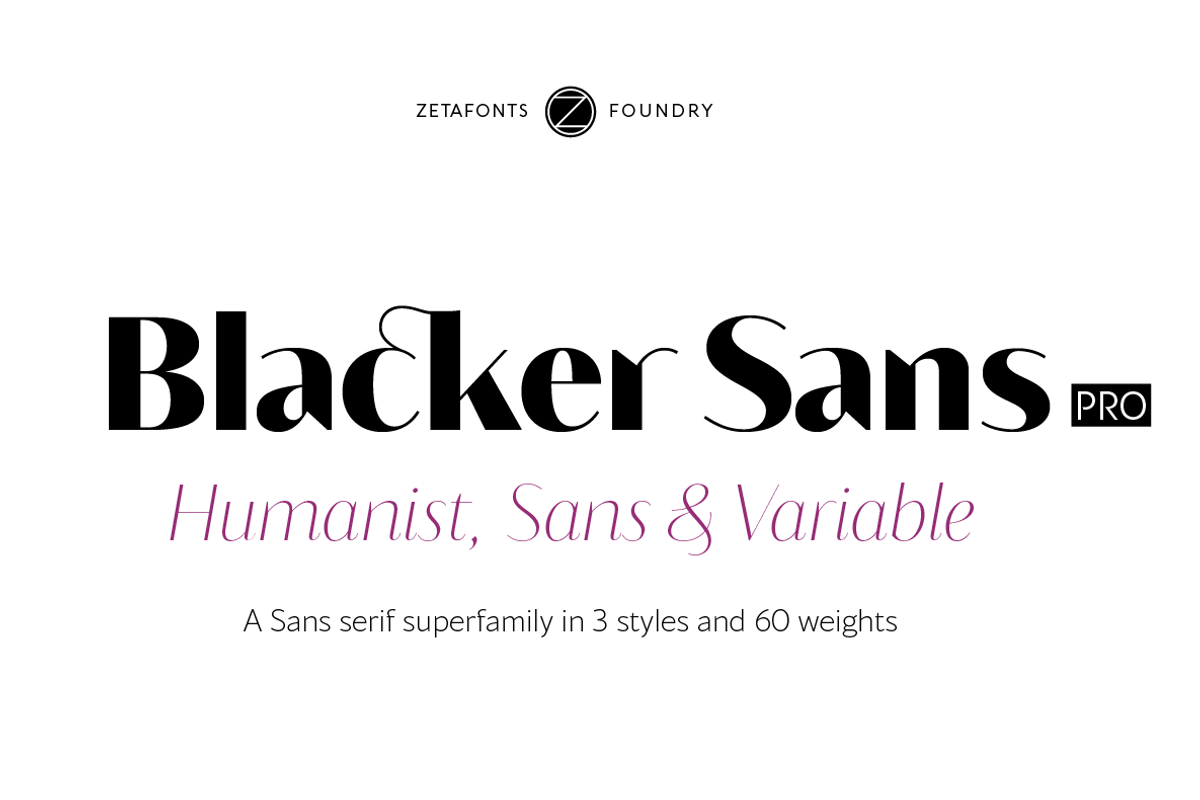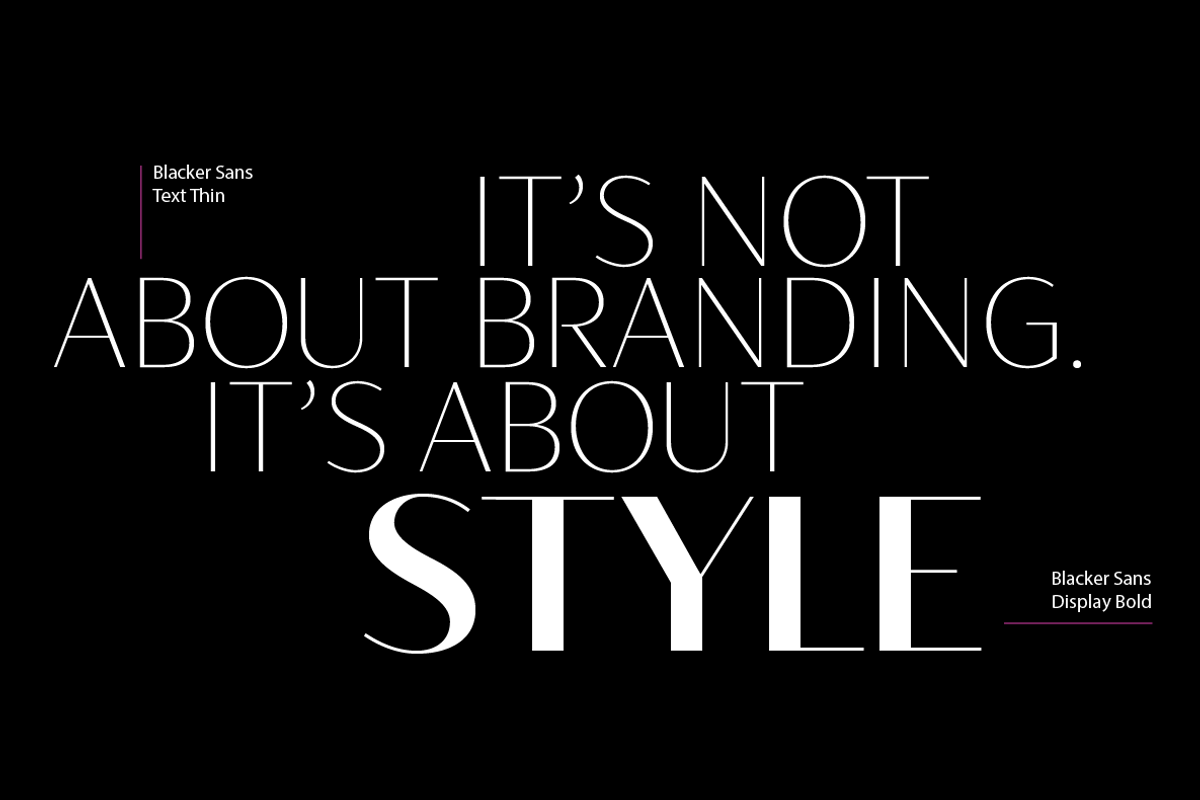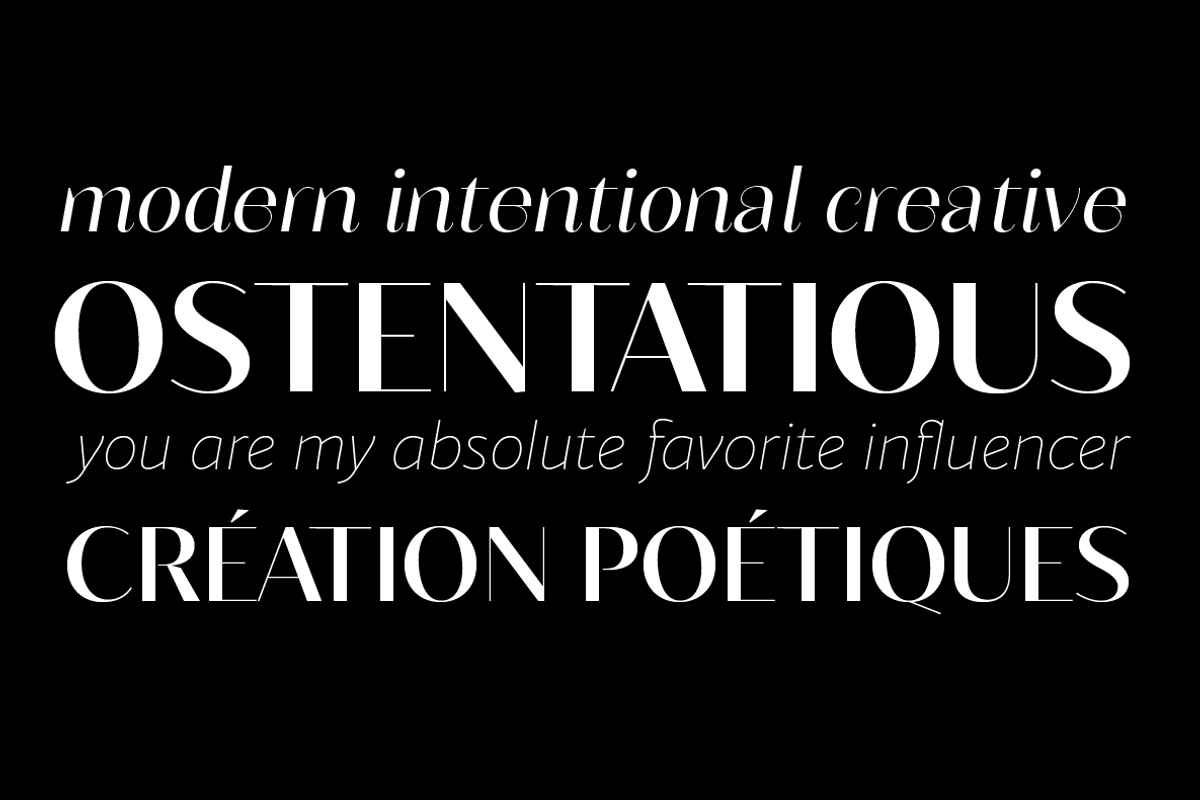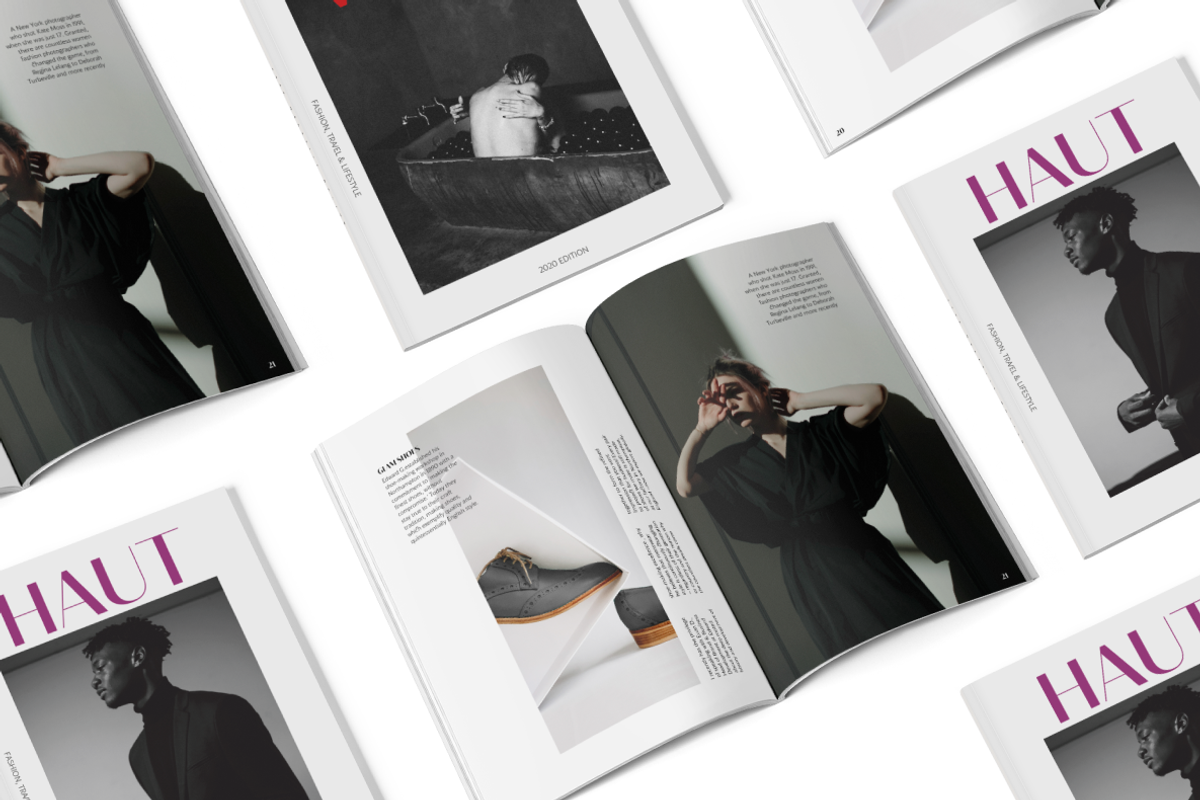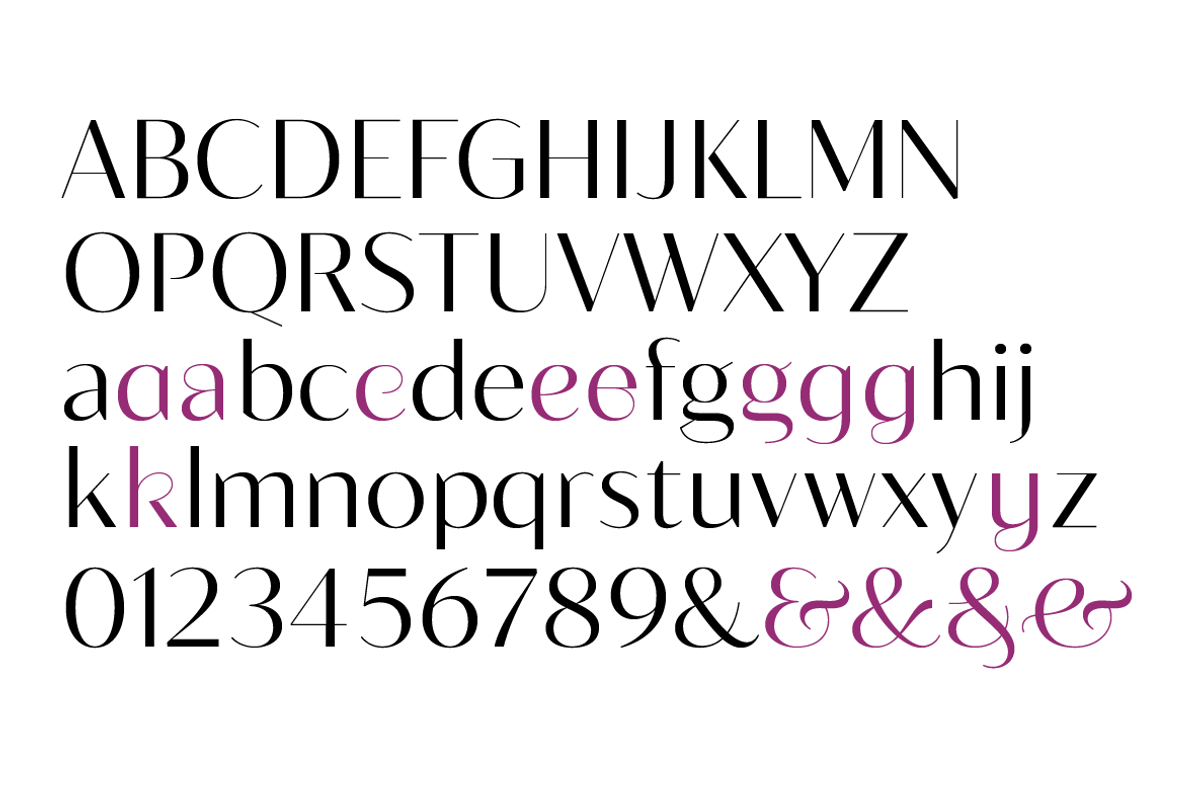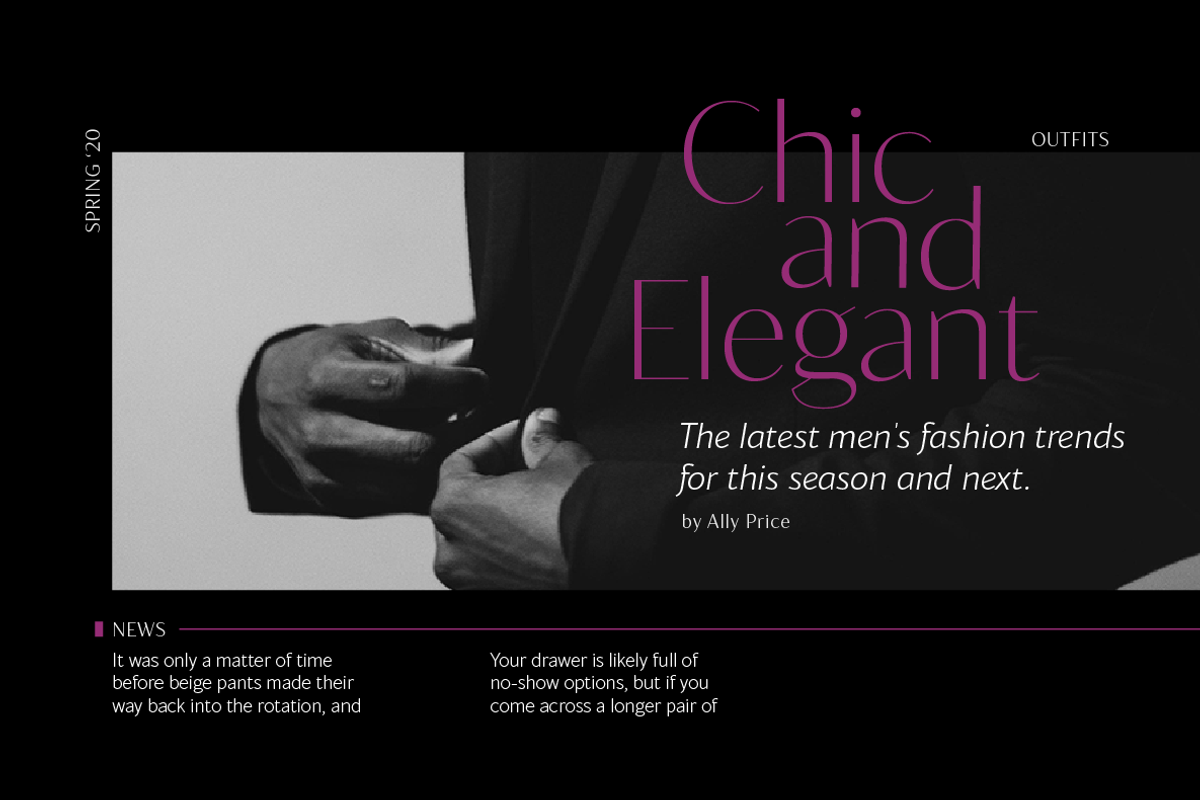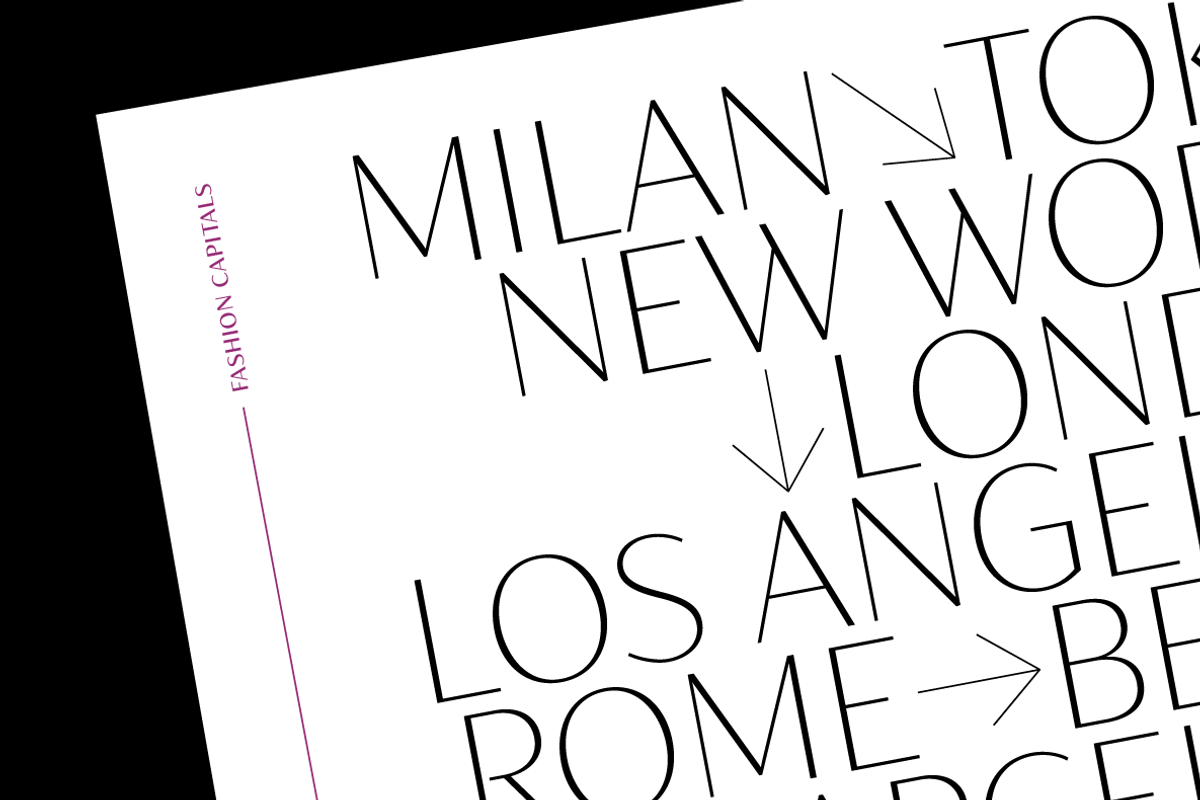
Blacker Sans - 60 + 3 variable fonts
Blacker Sans Pro is a complete redesign and development of the original family designed by Francesco Canovaro in 2019 as a sans-serif variant of the successful Blacker created by Cosimo Lorenzo Pancini and Andrea Tartarelli. The original idea of Blacker Sans was to create a versatile pairing for Blacker, parting with its spiky wedge serifs but keeping its dark, elegant character and extending its weight range to 20 weights including italics.
This Blacker Sans Pro family did also differ in contrast from the original Blacker family, choosing a more even and monolinear, almost grotesque approach. This choice that favored versatility over elegance left some of the original uses of Blacker not covered by its sans counterpart, and so two subfamilies were added, applying to the same skeleton varying degrees of contrast, from the readability-optimized medium contrast of Blacker Sans Text to the extreme variations of Blacker Sans Display, with its elegant juxtapositions of thin curves and thick black slabs.
The original signature details of Blacker, like the hook shape of lowercase "f", have been complemented by new alternate forms, ligatures and swashes, with stylistic sets providing options to easily make logos and headings stand out. The wide range of OpenType features (that includes also small caps, positional numbers, and alternate punctuation) is applied to all the 60 weights of the family, each with over 1600 characters offering language support for 220+ languages using Latin, Cyrillic and Greek alphabets.